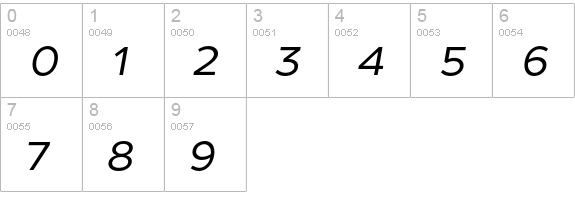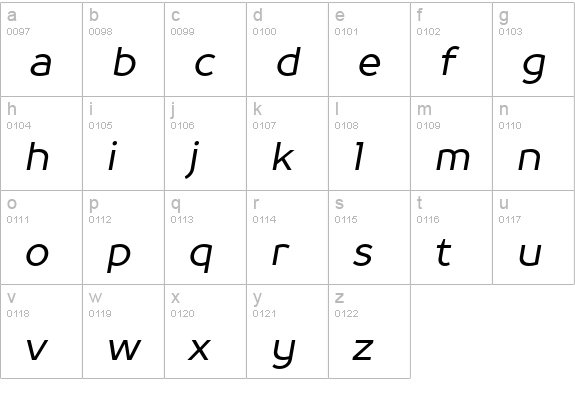
TT Prosto Sans Italic is a distinctive, italic variant in the TT typeface family \xE2\x80\x94 well suited to design and typography projects.
TT Prosto Sans Italic is a modern, sleek, and elegant typeface that exudes sophistication and style. Its italicized design adds a touch of flair and creativity to any project, making it perfect for branding, advertising, and editorial use. The flowing curves and slanted angles of TT Prosto Sans Italic create a dynamic and engaging visual impact, making it stand out from the crowd. What's even better is that TT Prosto Sans Italic is available for free download at FontsMarket.com. This means that you can easily access this beautiful font and incorporate it into your designs without any cost. Whether you're a graphic designer, a web developer, or simply a typography enthusiast, TT Prosto Sans Italic is a versatile and eye-catching choice that will elevate your work to the next level. Don't miss out on the opportunity to enhance your projects with this stunning typeface - download TT Prosto Sans Italic for free today at FontsMarket.com!